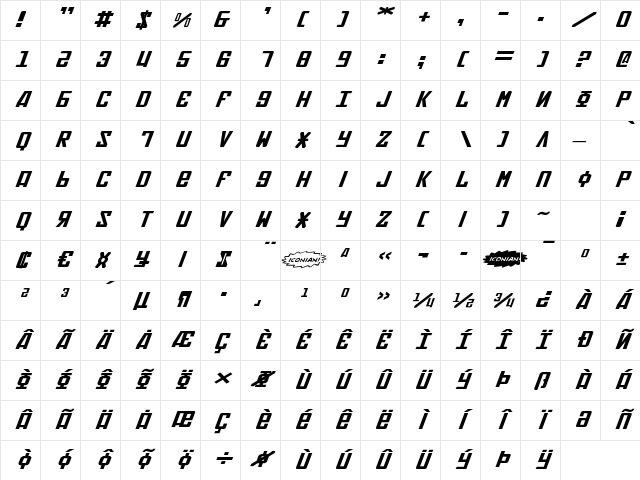
Soviet Expanded Italic Expanded Italic
Style: Expanded Italic
Designer: Dan Zadorozny
Soviet Expanded Italic Family
Design Context for Soviet Expanded Italic
Soviet Expanded Italic is a composed and adaptable typeface that performs quietly and consistently across a wide range of design contexts. The slanted form adds forward momentum and visual energy.
Pro Tip: Use Soviet Expanded Italic for emphasis, pull quotes, and subheadings where its slanted energy can add rhythm to the layout.